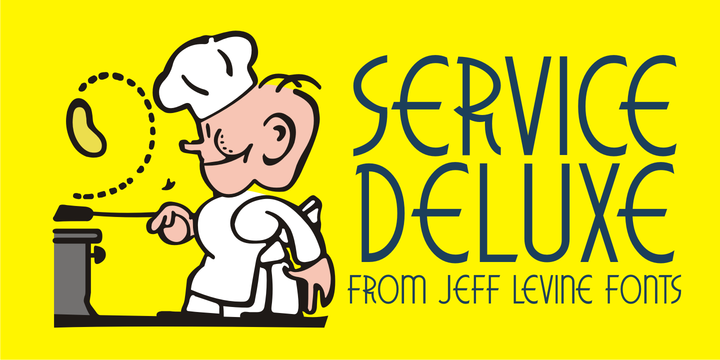
Service Deluxe JNL
by Jeff Levine
Titles from the 1938 movie “Service Deluxe” starring Vincent Price and Constance Bennett were the inspiration for the similarly named Art Deco typeface Service Deluxe JNL.